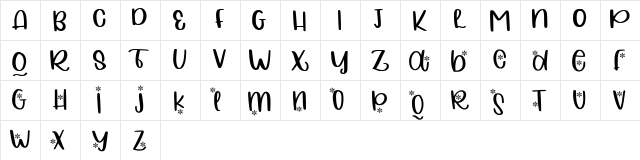
Christmas Love Forever Regular Font Preview
Christmas Love Forever Regular
Christmas Love Forever Regular Font Details
Design Context for Christmas Love Forever Typeface
Christmas Love Forever is a composed and adaptable typeface that performs quietly and consistently across a wide range of design contexts.